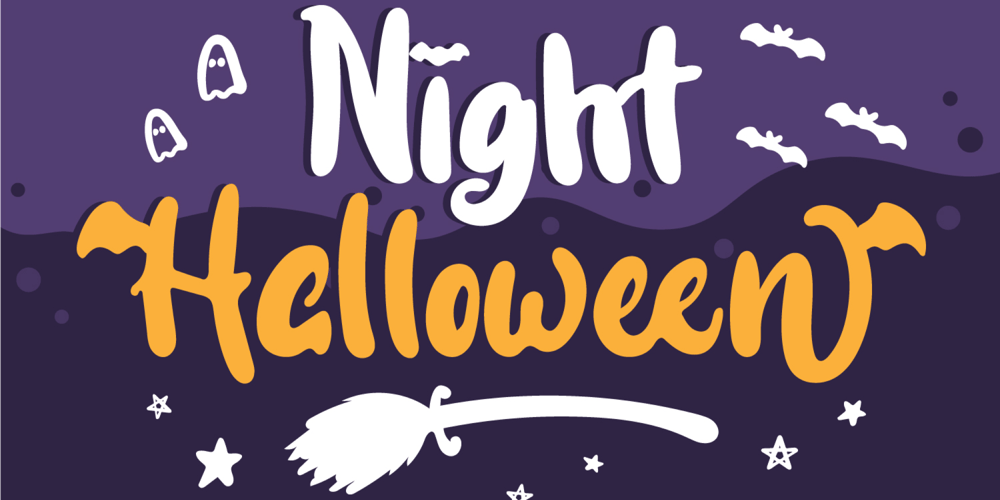
Night Halloween
Night Halloween font
Night Halloween Font Family was designed by Yudi Setiawan and published by Wyarecreatype. Night Halloween contains 1 styles and family package options. Night Halloween is a lovely halloween themed. Wide variety of halloween line art for Stylistic Alternates. Masterfully designed to become a true favourite, this font has the potential to bring each of your creative ideas to the highest level! Perfectly fit for the visual project such as logo, branding, poster, food and beverages, social media content, website, UI/UX design, youtube thumbnail, CV, mood board, wedding, you name it.